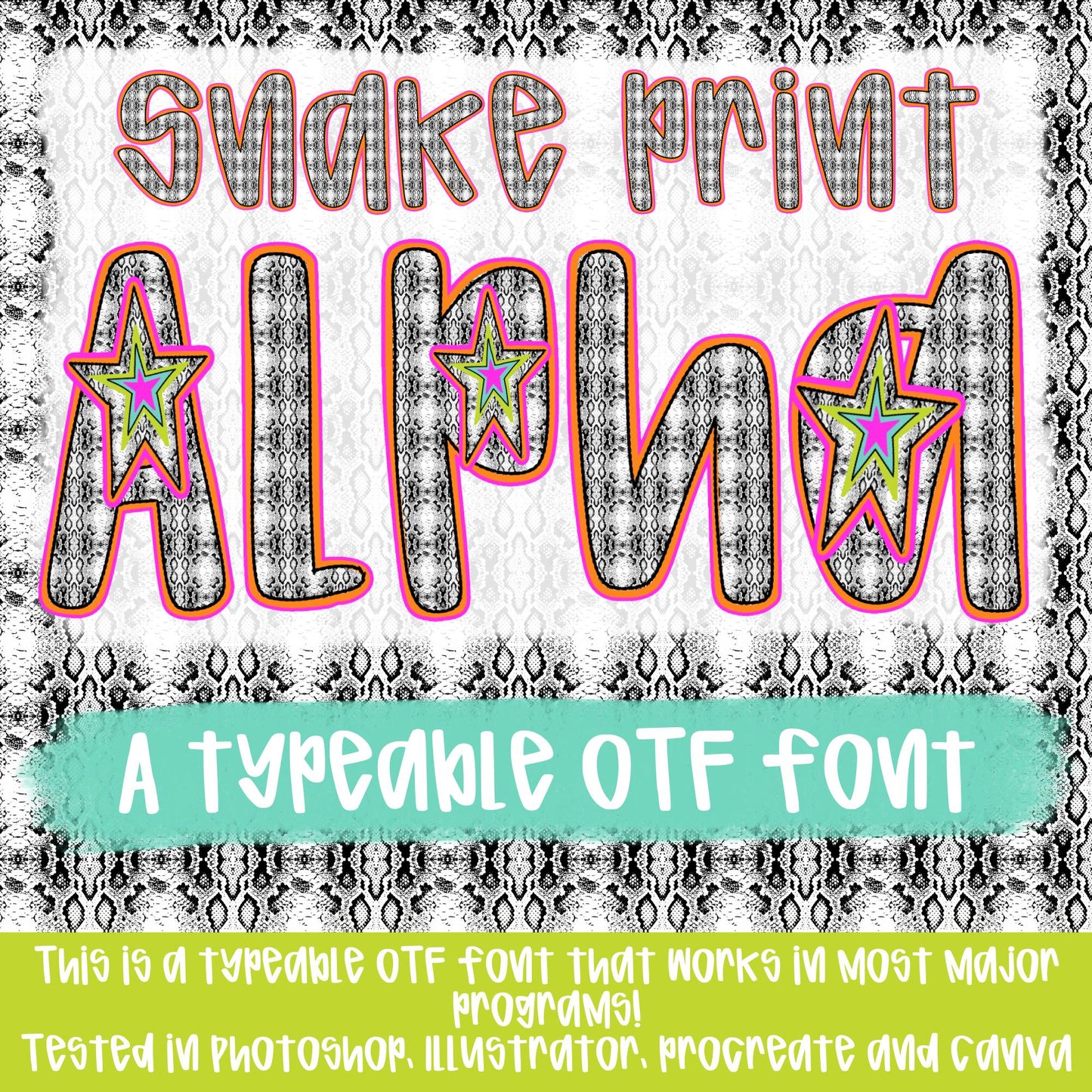
Snake Print Alpha | Typeable Font | Sublimation Design | Digital Download | Women’s, Kids Shirt PNG
-1 STAR that can be used and placed wherever you want! You can use it by typing a . and the star will appear!